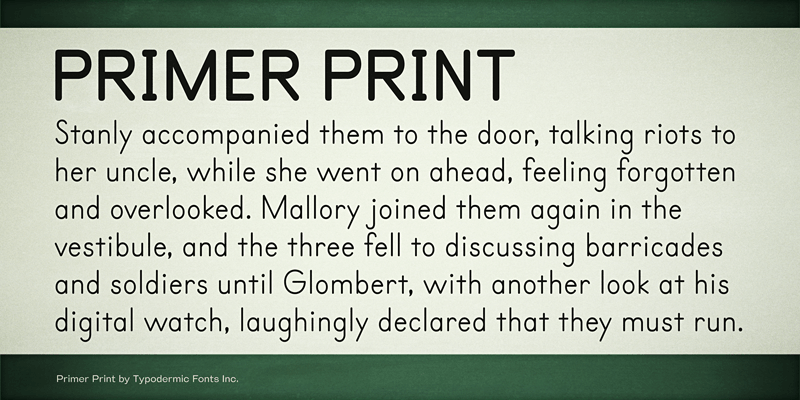
Primer is a font inspired by teaching materials for printing. In OpenType savvy applications, you can use the "stylistic alternates" feature to access a serifed J and a q with a sharp hook. These fonts include a license that allows free commercial use: sometimes referred to as a desktop license. This allows you to install the fonts on a computer and use them to create posters, web graphics, game graphics, t-shirts, videos, signs, logos and more. Read the license agreement for details. If you'd like to embed these fonts in an app, ebook, on the web or anything that's not covered by the desktop license agreement, visit the link below. You'll find distributors who offer different types of licenses or you can contact me for help. http://typodermicfonts.com/primer/ |